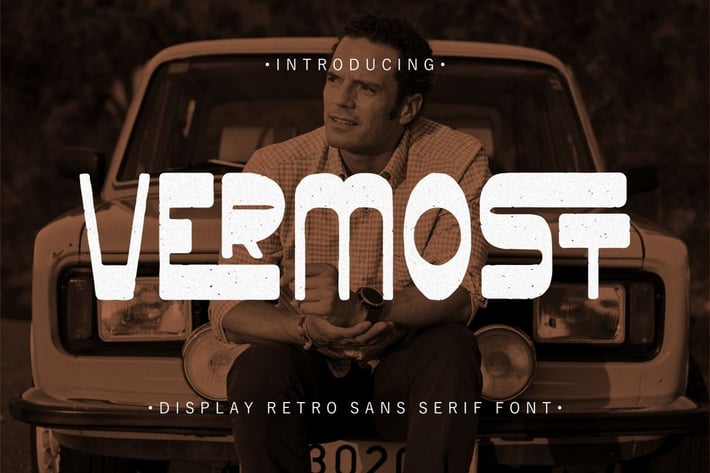
Vermost - Display Retro Sans Font
Vermost
Vermost is display retro sans serif font. This font is very unique and unlike other fonts, the difference is that the horizontal body is thicker than the vertical. This font also goes into a classic style, with a neat and soft shape. There is a rough/texture version too. I strengthen the vintage/retro impression with the character ligatures, there are 88 ligatures in this font. But if you want to use this font with a neater impression, you can disable this ligature feature.
This font is perfect for projects with vintage/retro and classic themes. But this font is also suitable for logos, branding, greeting cards, invitation cards, advertisements, titles, healines, book titles, stickers, packaging, quotes, posters, billboards and others.
This font is also support multi language.
Comes with feature :
- Opentype (Alternates And Ligatures)
- Number, Punctuation And Symbols
- Multilanguage Support.